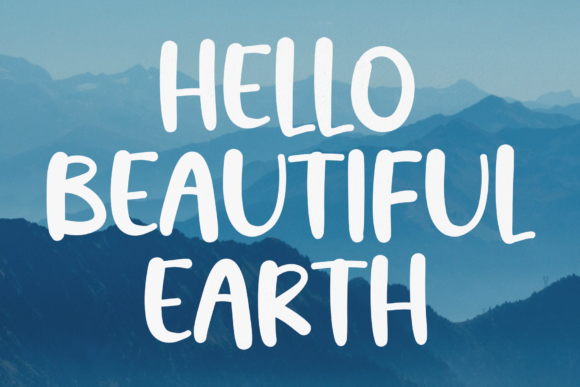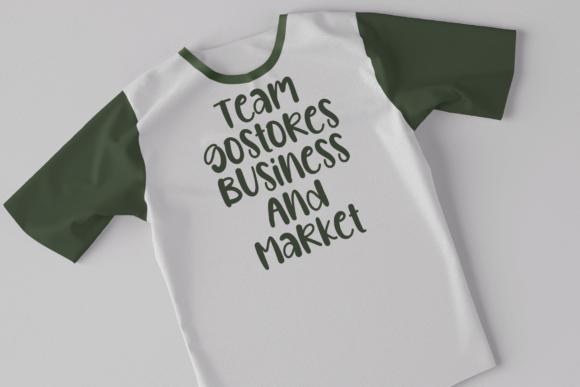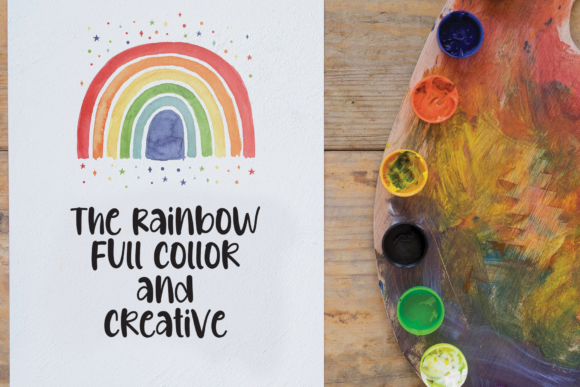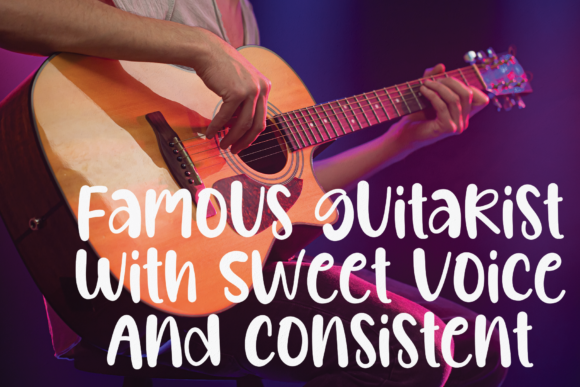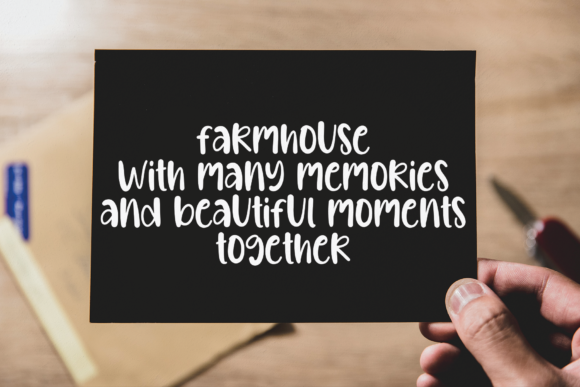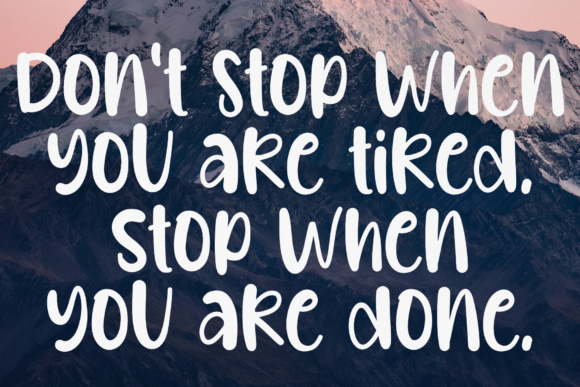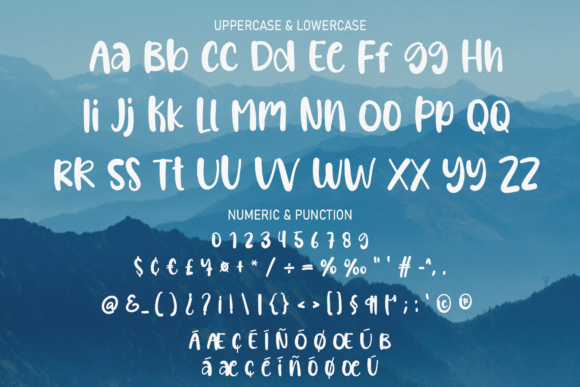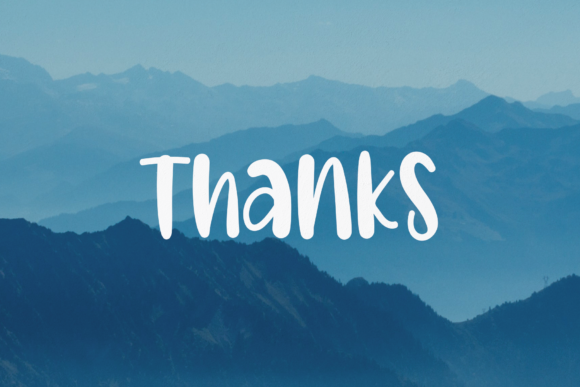
Hello Beautiful Earth Font
About Hello Beautiful Earth Font
Introducing “Hello Beautiful Earth,” a splendid handwritten font designed to elevate your projects with its extraordinary charm. Whether you’re creating wall displays, wedding invitations, social media post logos, advertisements, product packaging, labels, photography, watermarks, invitations, stationery, or any project that requires a touch of handwriting, Hello Beautiful Earth offers a perfect blend of style and elegance.
With its unique and organic strokes, Hello Beautiful Earth delivers an exceptional experience to your designs. Its handwritten style adds warmth and personality, making it ideal for adding a personal touch to your projects.
Experience the beauty and versatility of Hello Beautiful Earth and witness how it transforms your designs into captivating works of art. Whether you’re a professional designer or a passionate enthusiast, this font invites you to explore new possibilities and express yourself with confidence and style.
Unlock the full potential of your designs with Hello Beautiful Earth and let its splendid handwritten font elevate your projects to new heights. With its extraordinary charm and versatility, Hello Beautiful Earth is sure to become a cherished addition to your design toolkit, inspiring creativity and sophistication with every use.